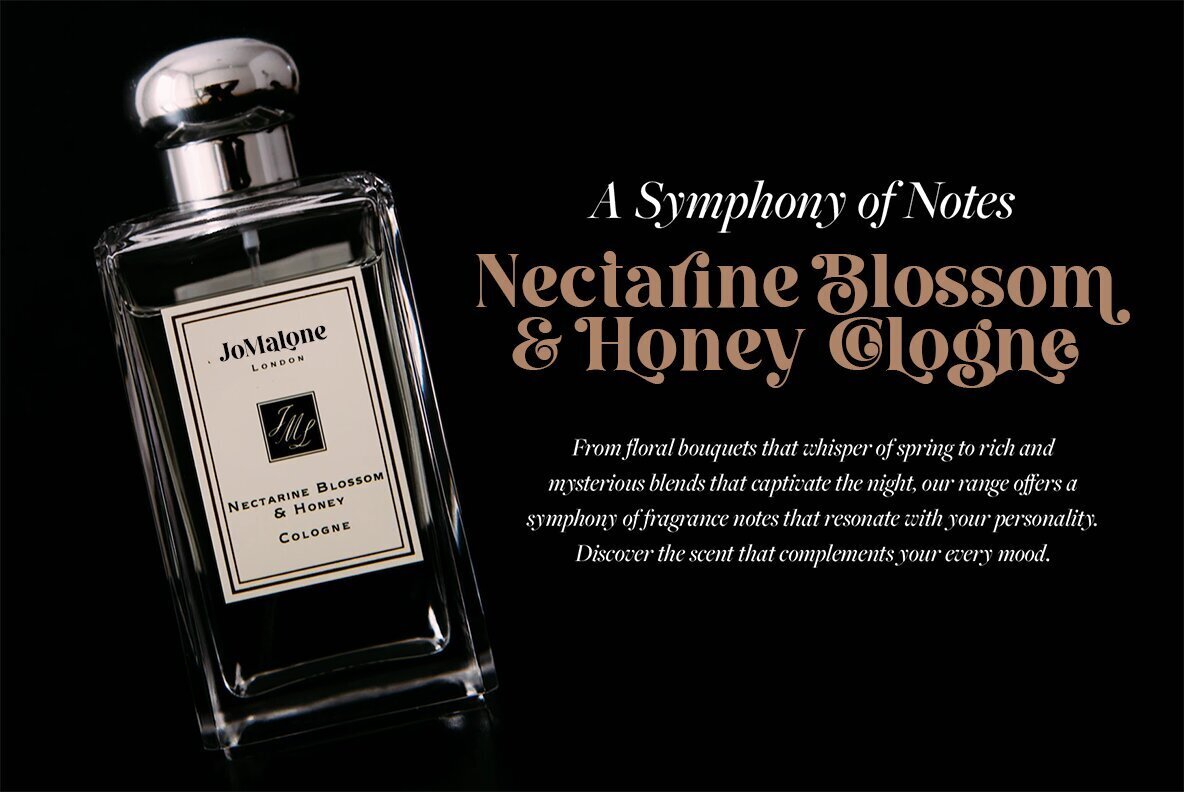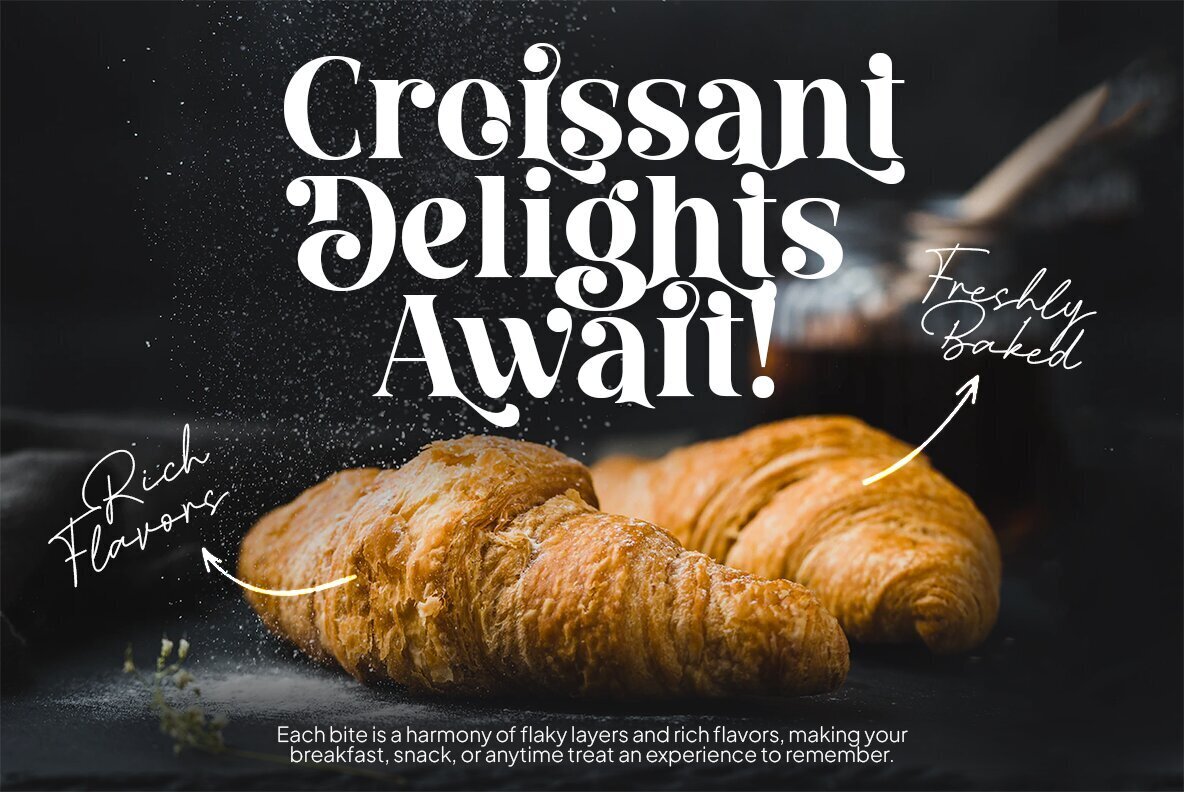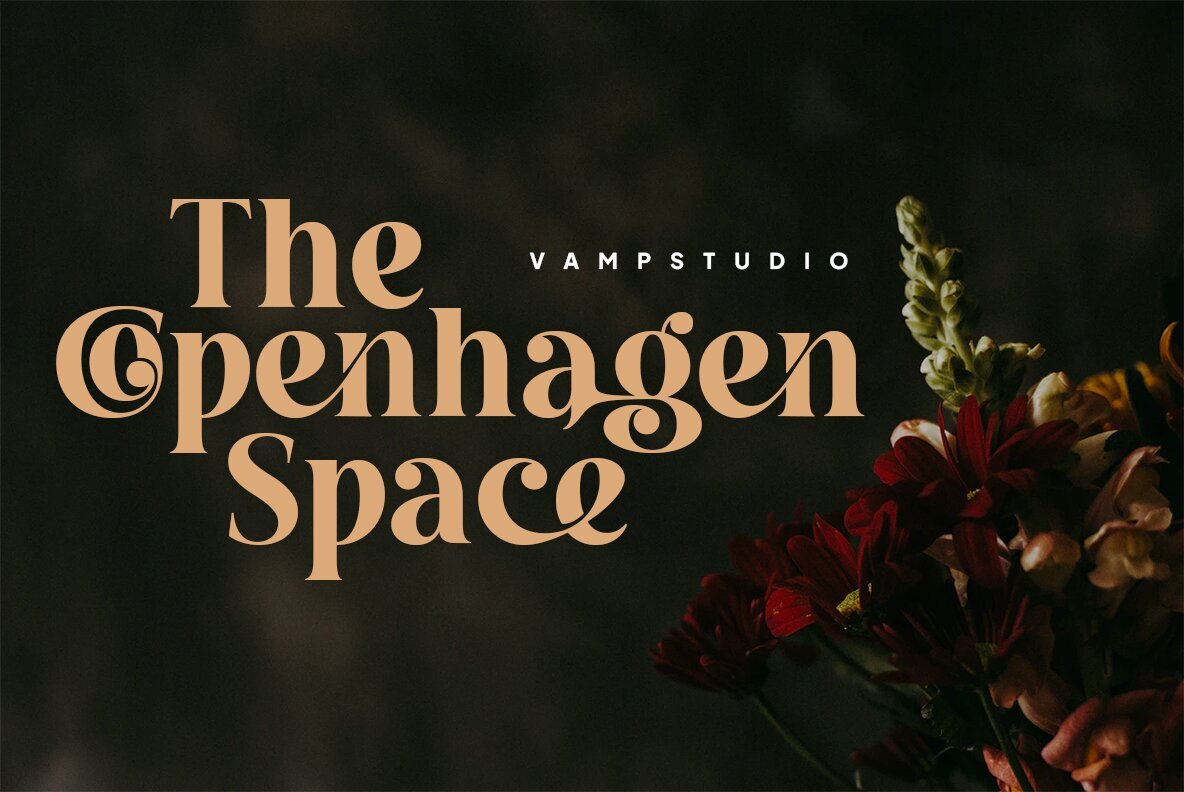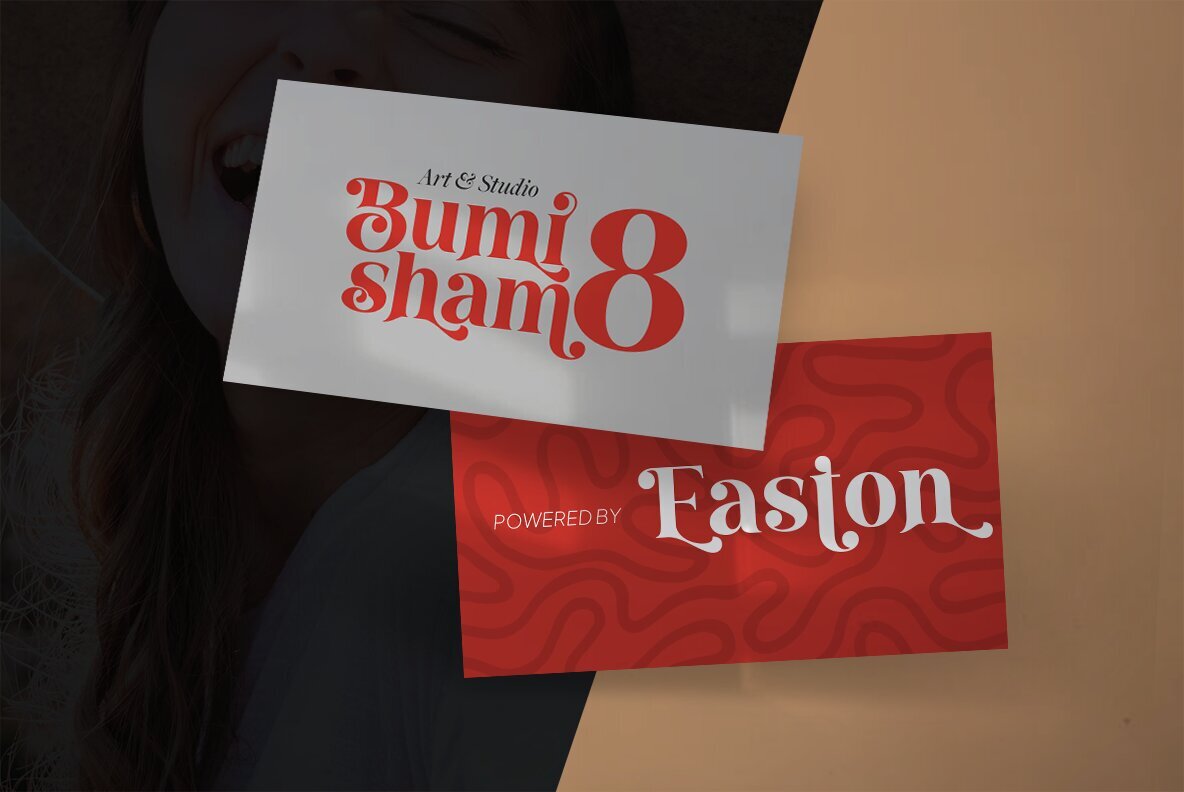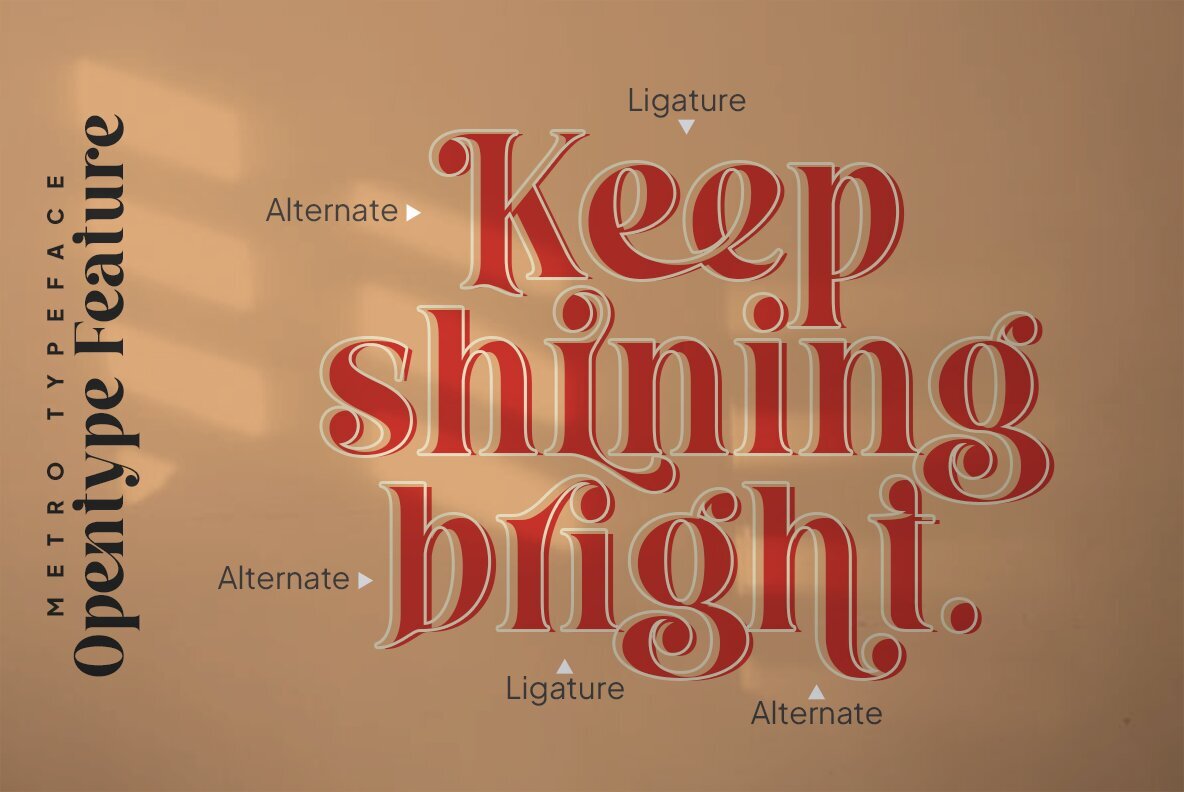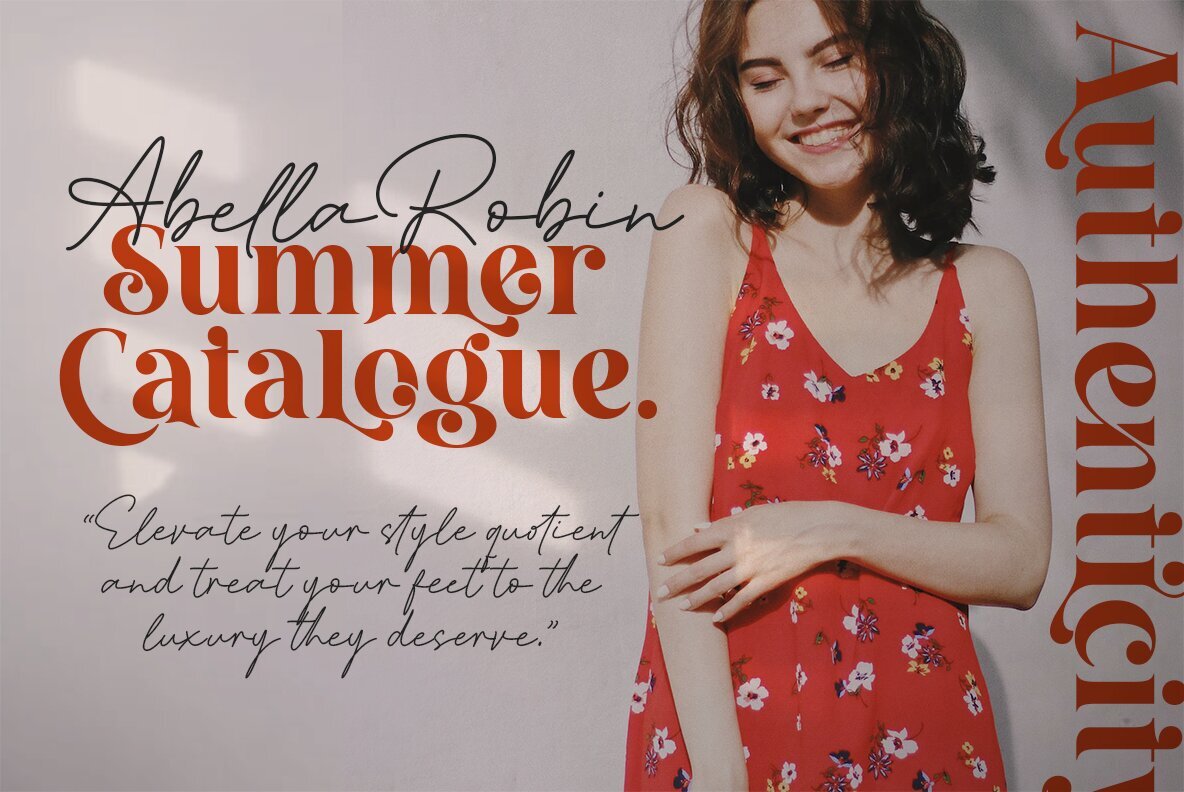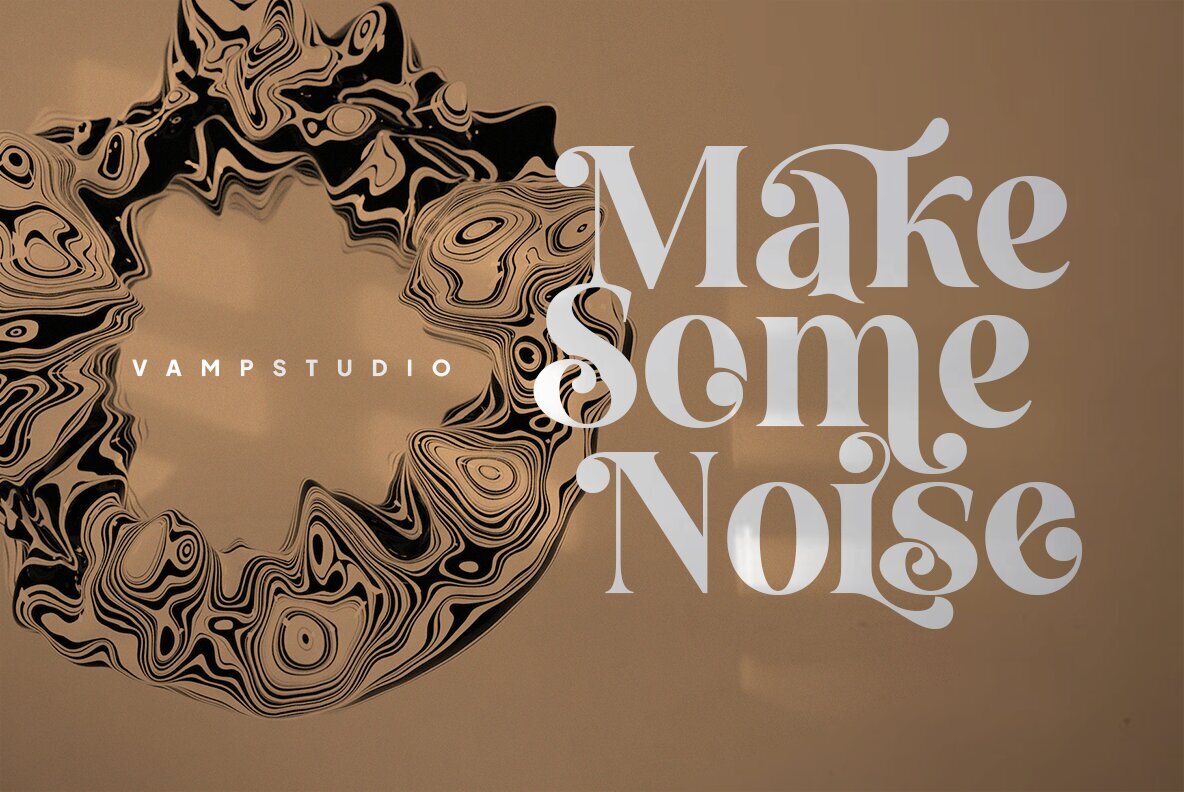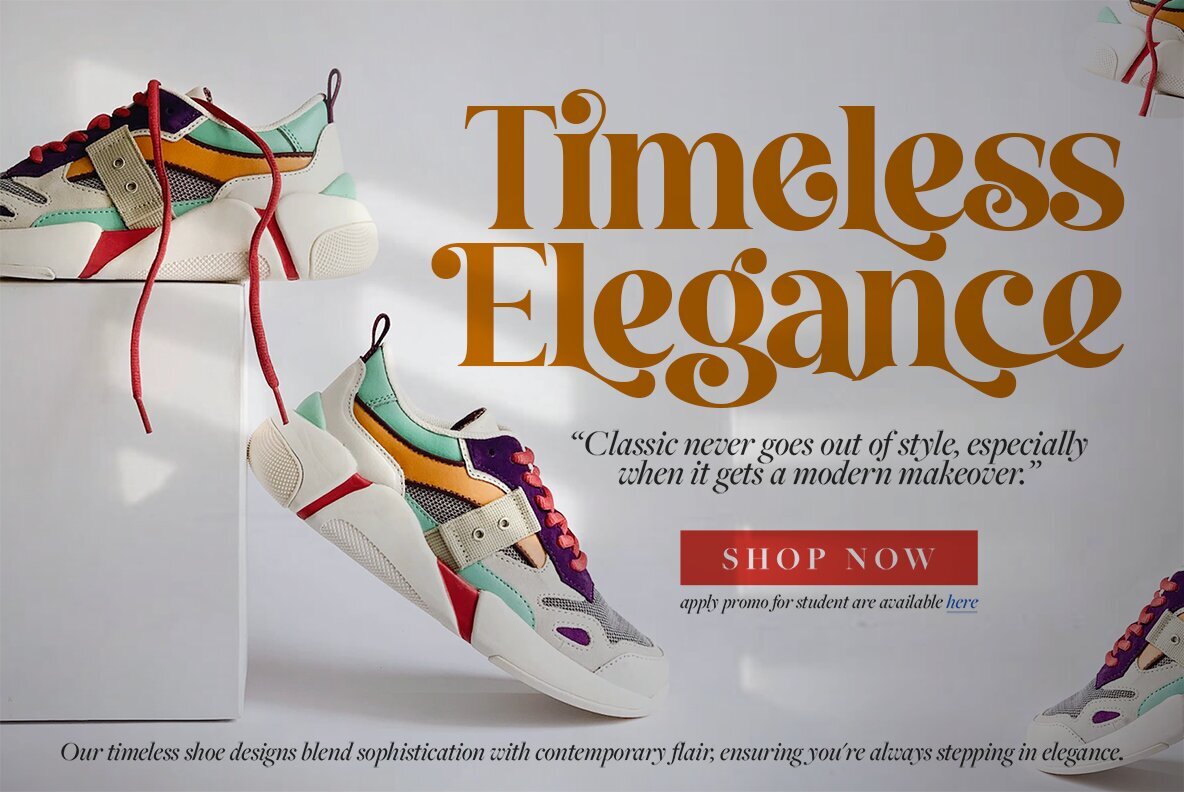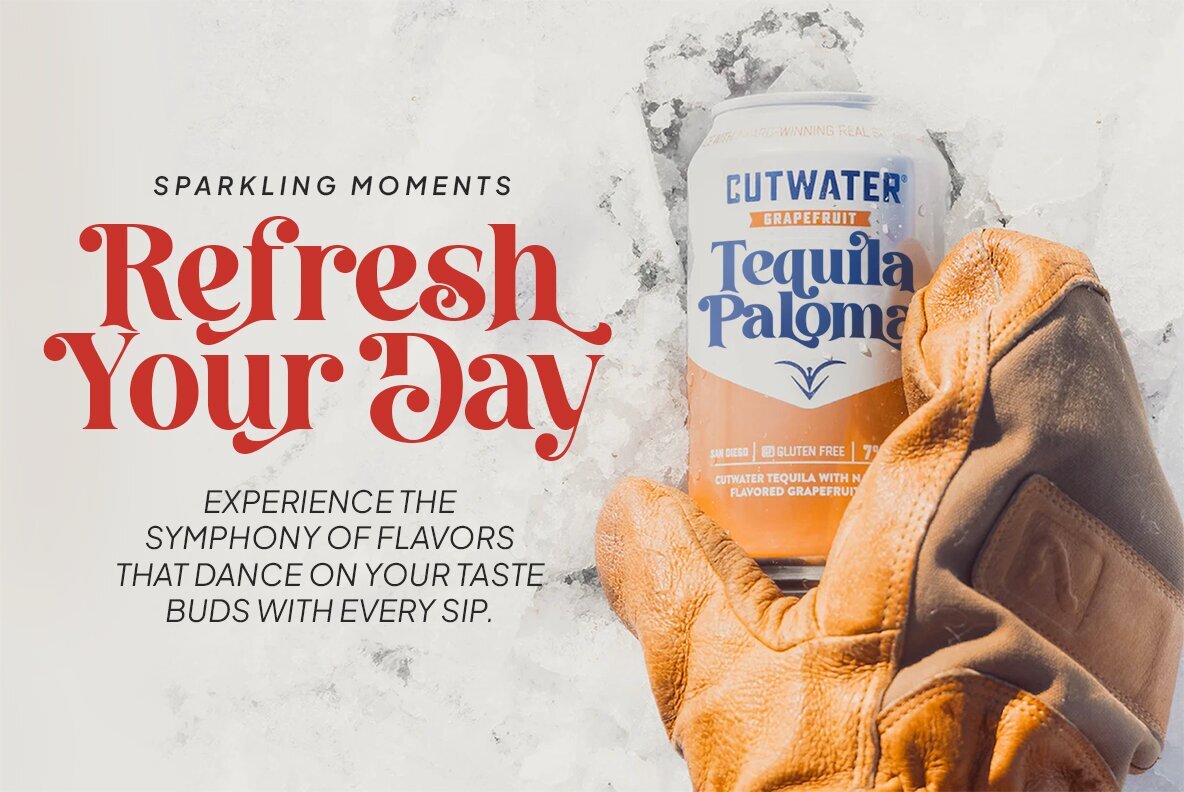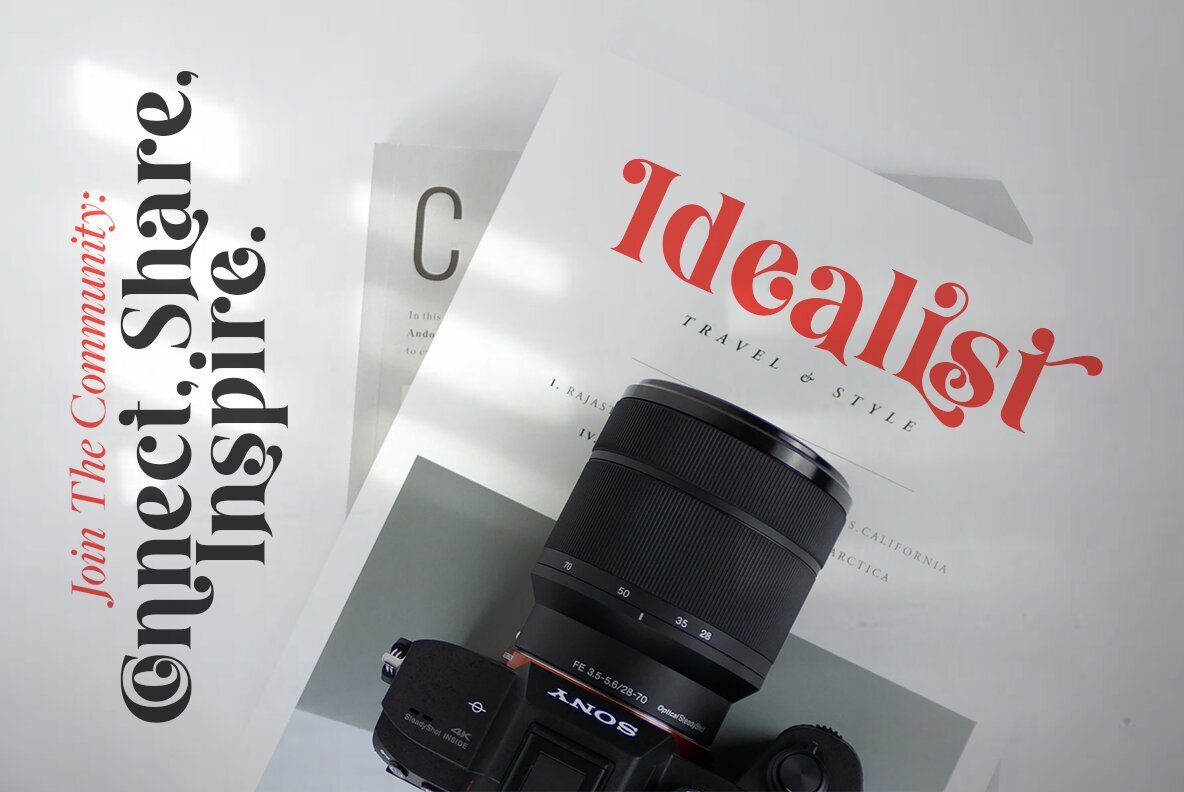
Metro Font
metro Regular
Metro Regular is a Vintage elegant serif typeface. This font looks very simple, clean, and elegant. Specially designed by skilled hands makes this font is the perfect fit for all your big projects. Metro Regular is perfect for branding projects, logo, wedding designs, social media posts, advertisements, product packaging, product designs, label, photography, watermark, invitation, stationery and any projects that need handwriting taste.